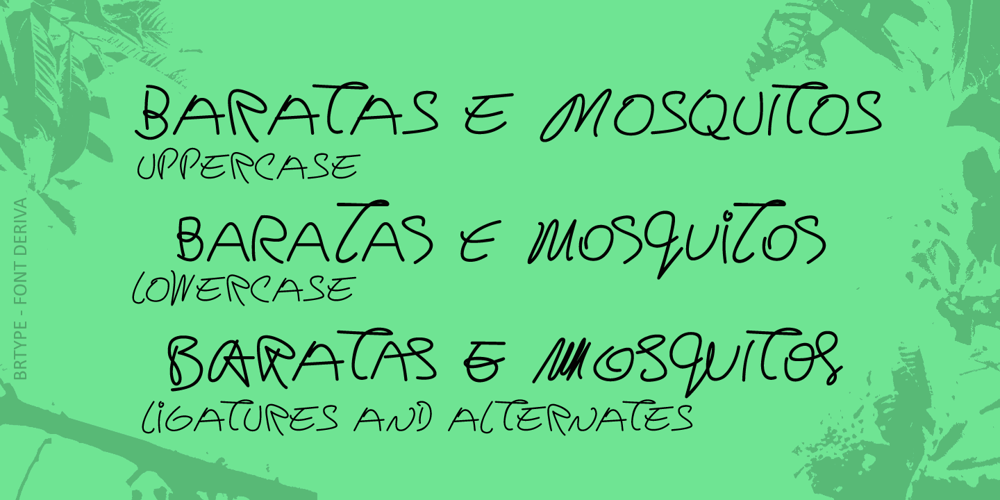
Deriva Font Family was designed by Gustavo Lassala and published by BRtype. Deriva contains 1 styles and family package options. Deriva was created taking as inspiration the manuscripts of a homeless person live in the city of São Paulo, Brazil.